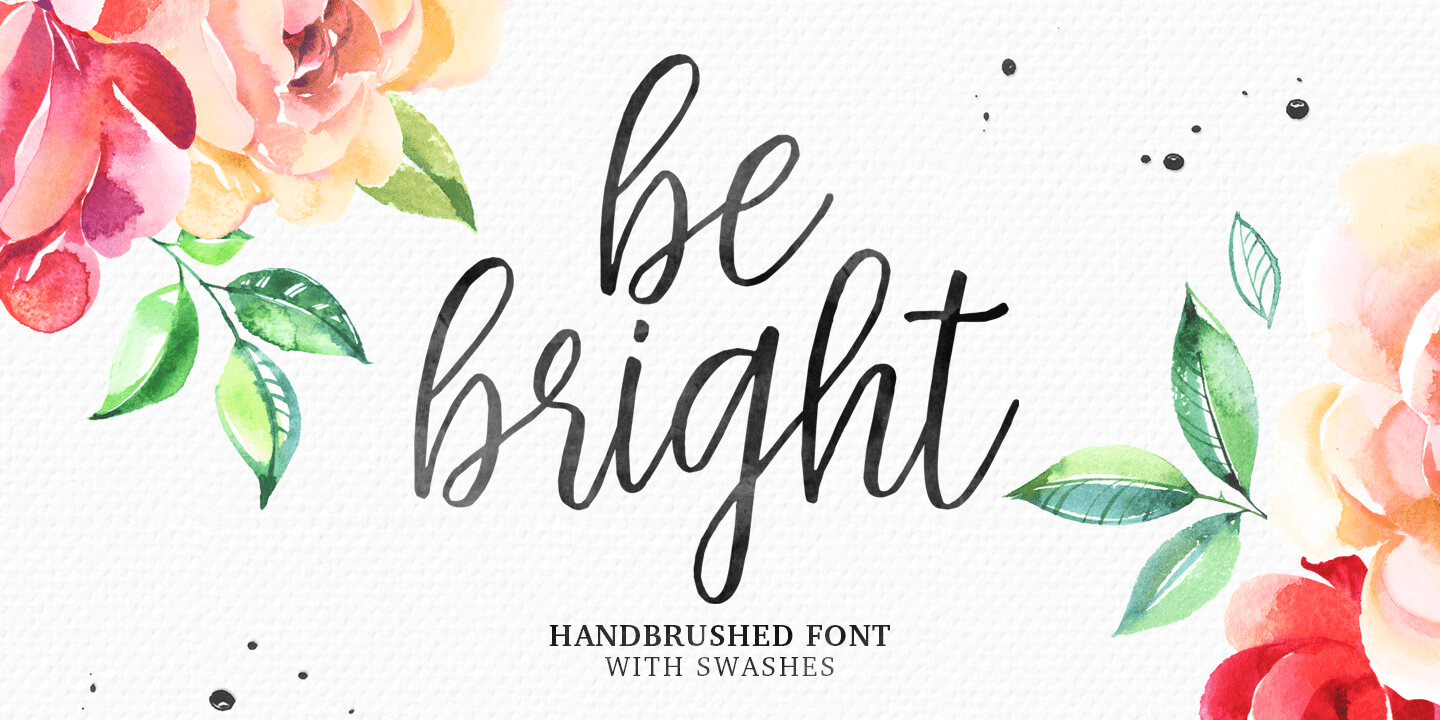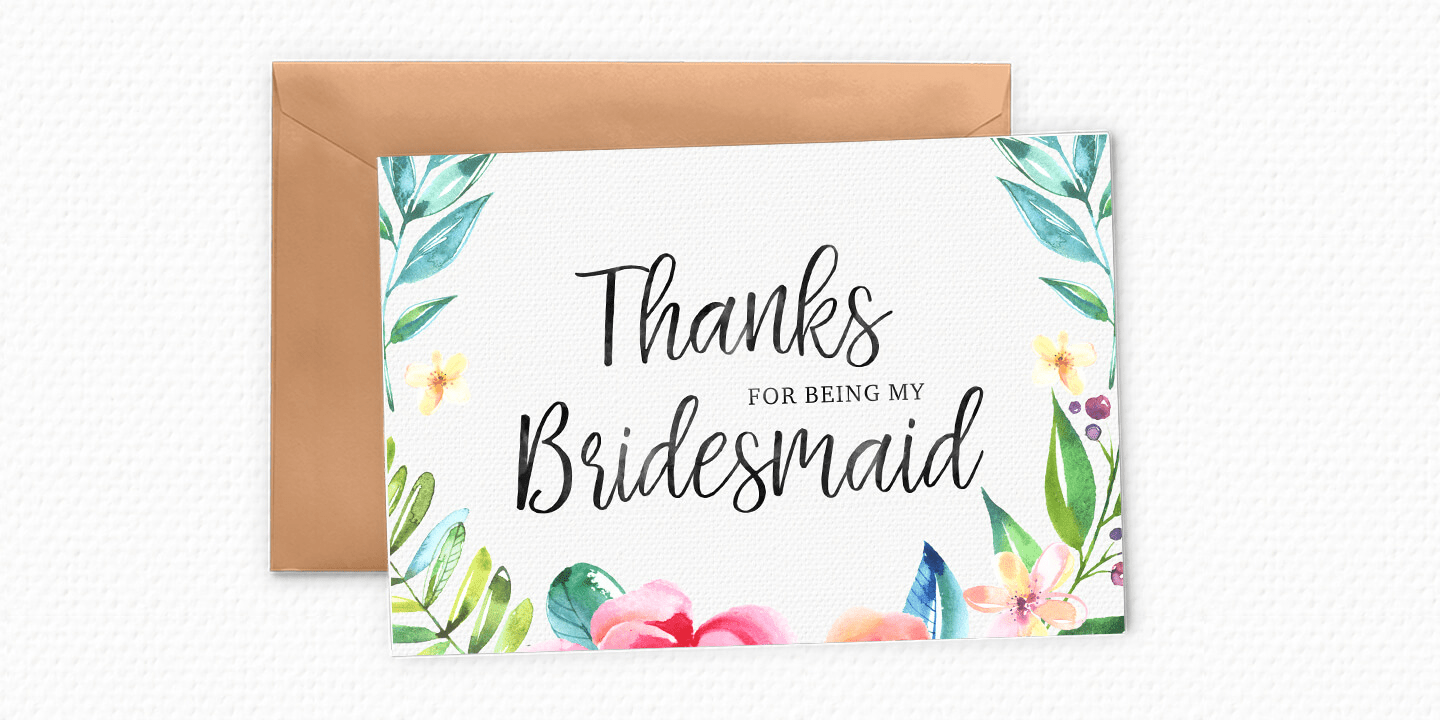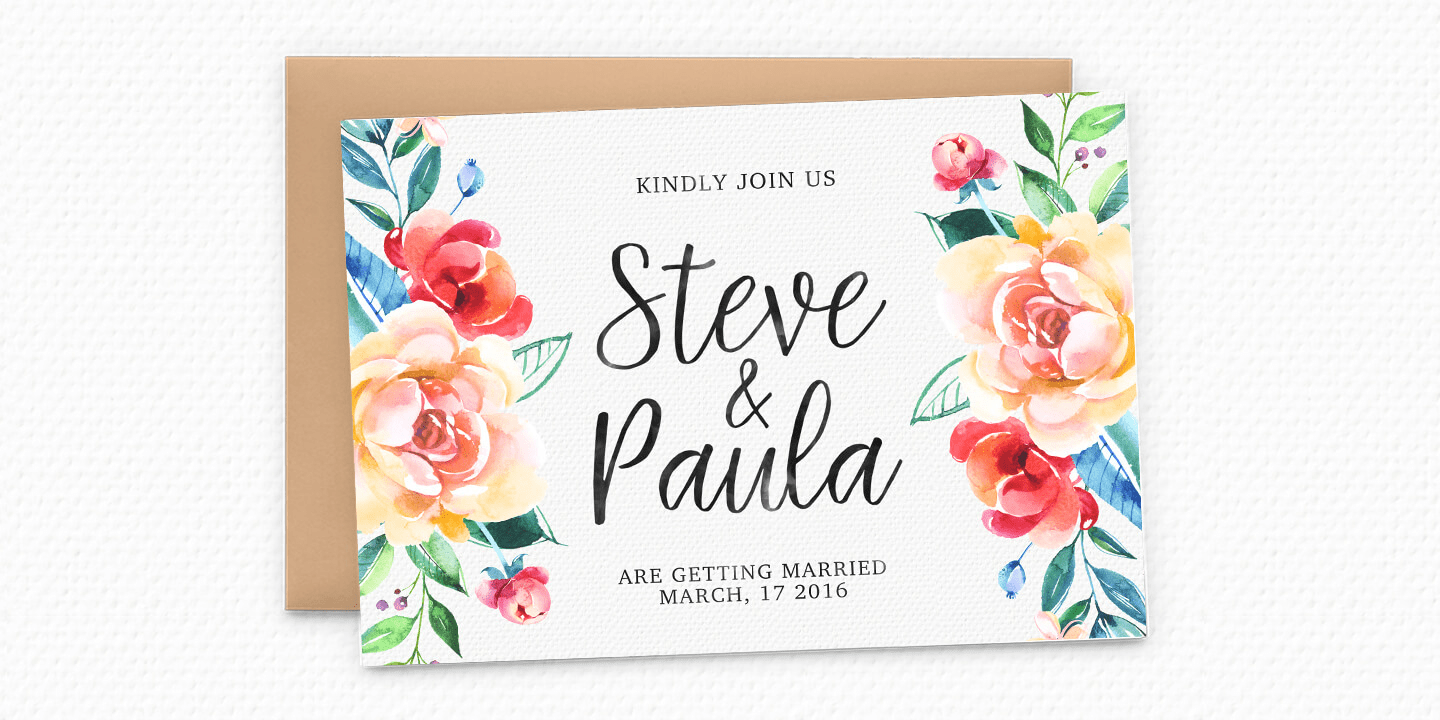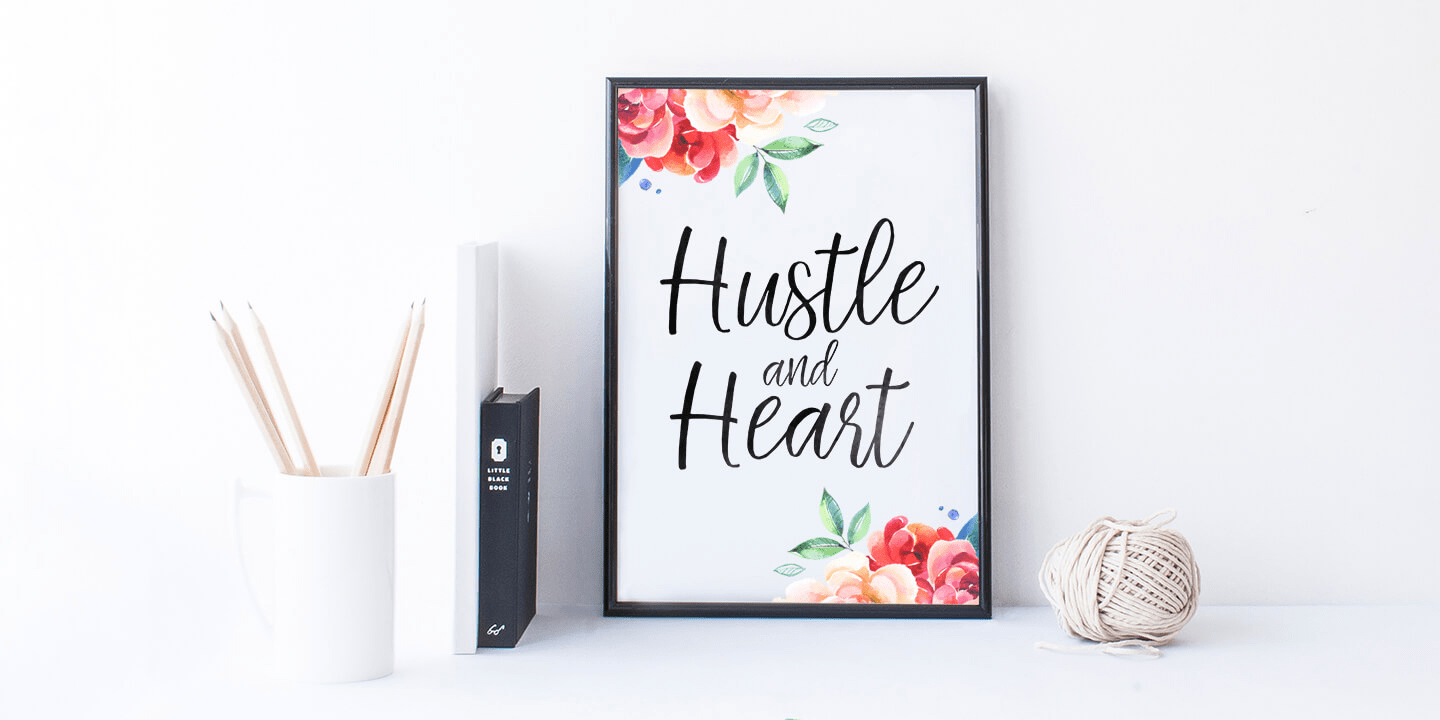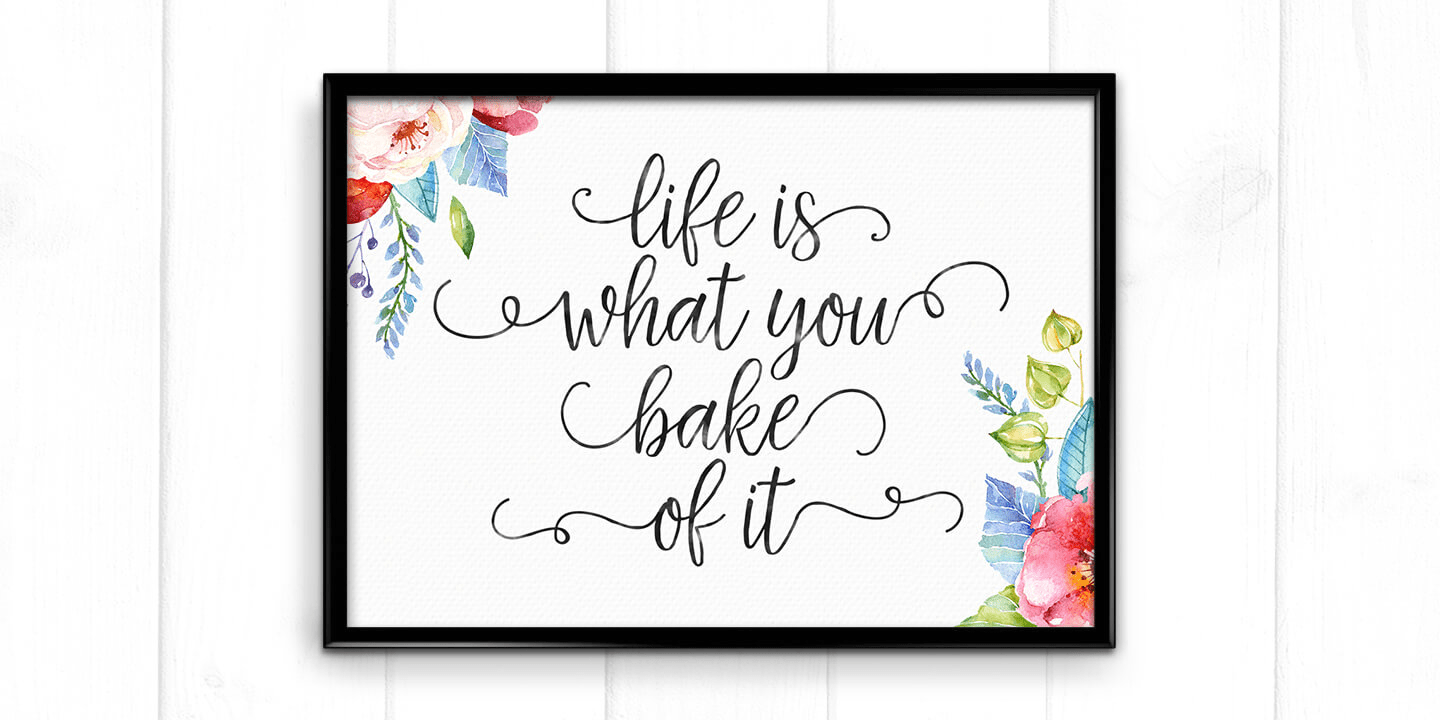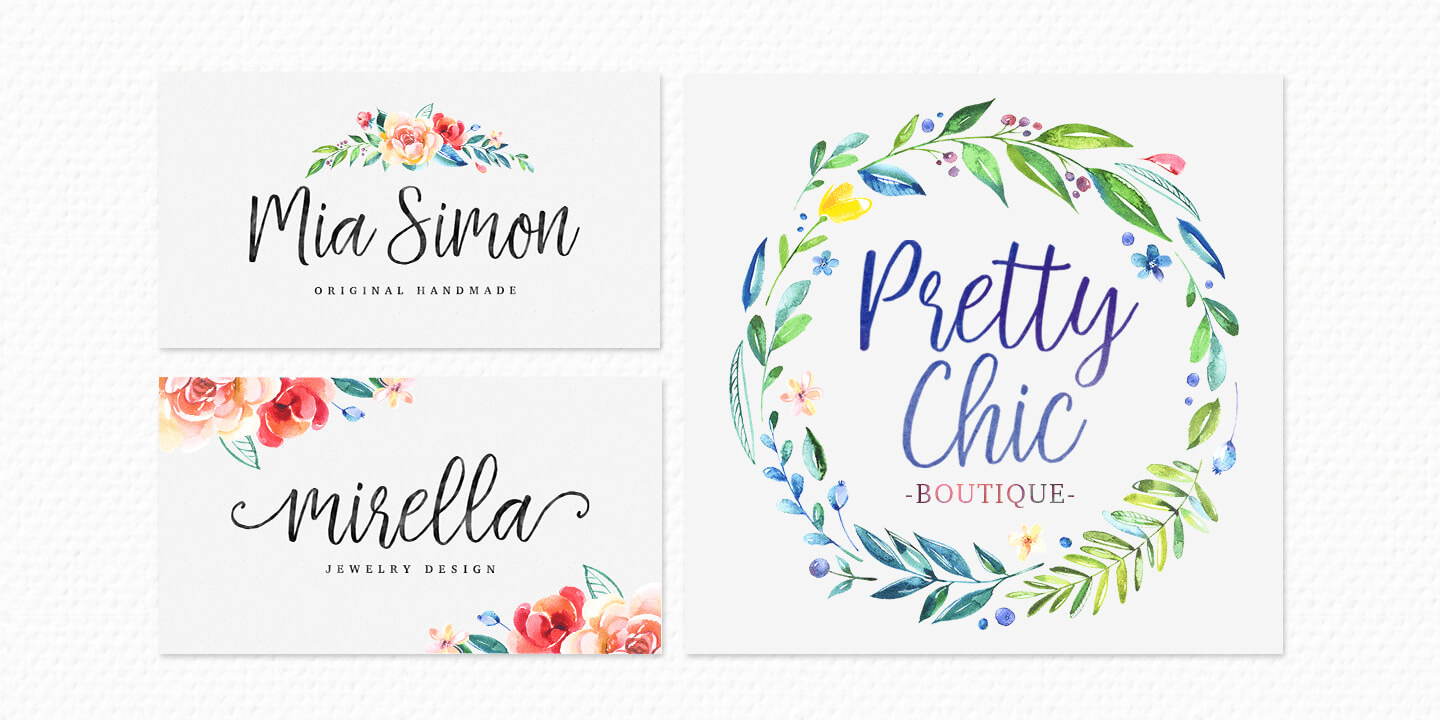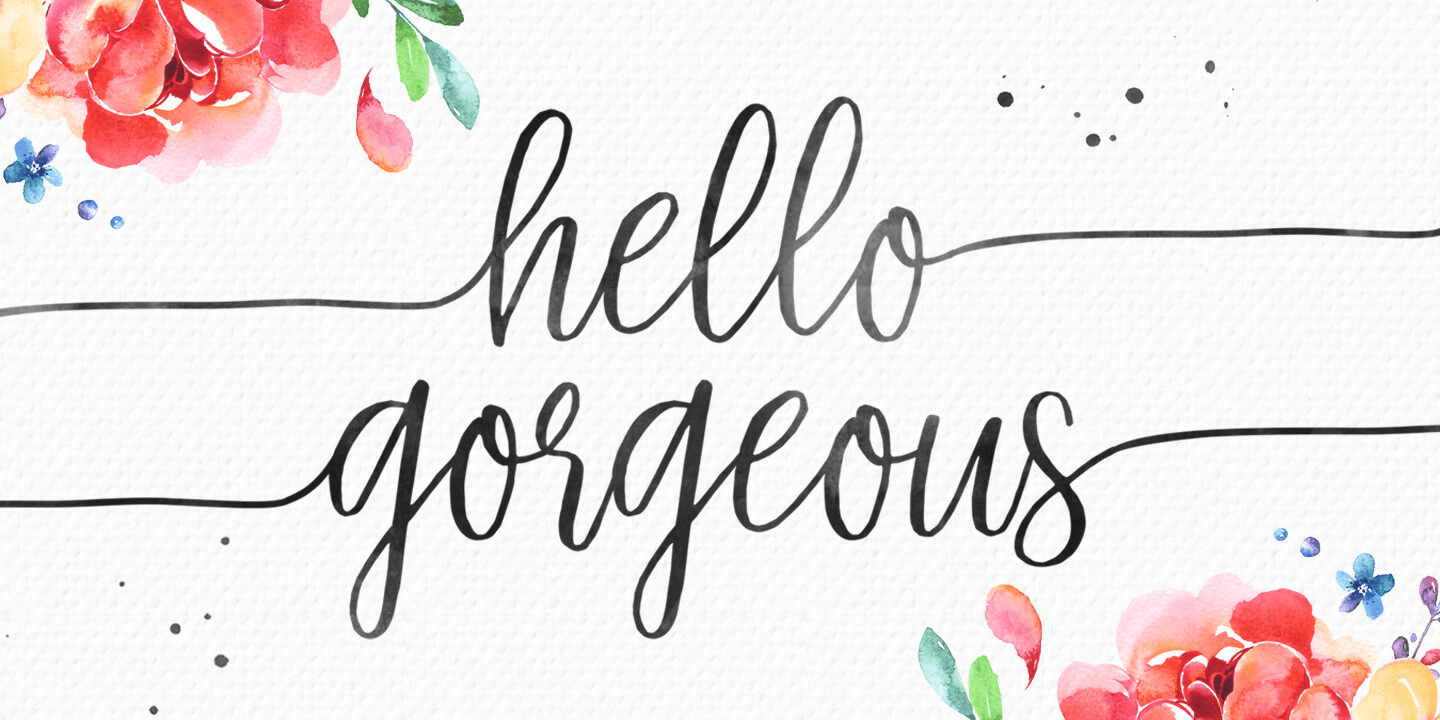
Be Bright
Be Bright is a sweet elegant handbrushed calligraphy font. It has a varying baseline with separate swashes that can be applied to the beginning and ends of all lowercase letters.
The glyphs were originally painted on paper, then scanned, vectorized and carefully made into a font. Be Bright includes several ligatures and international support for most western languages.
For the separate swashes font, type lowercase a-z for the beginning swashes and end swashes (access to the glyphs panel is not available, just add swashes manually). The font is perfect for branding, logos, greeting cards, wedding stationery and quotes.